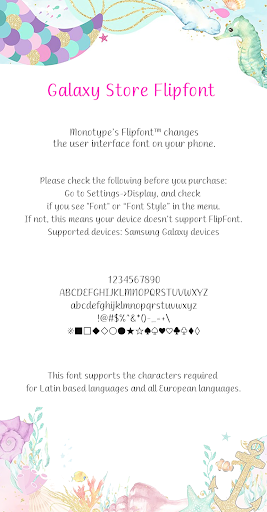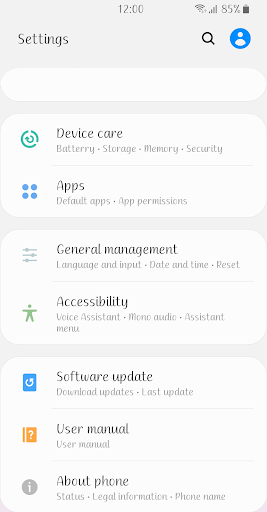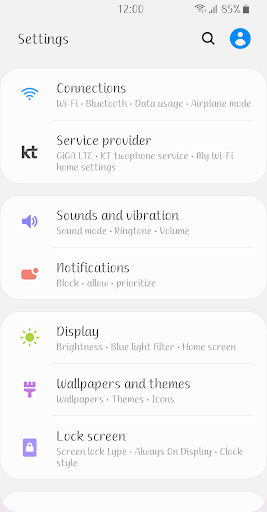
Fine Mermaid
This font is a softly written pen writing style font.
You can see that the thickness changes as the stroke moves and continues naturally.
Like an unknown world in the blue sea, I am drawn to you and cannot escape.
My heart is touched by your beauty.
You will discover true love hidden deep within your heart.
I will love you forever, until this ocean dries up.